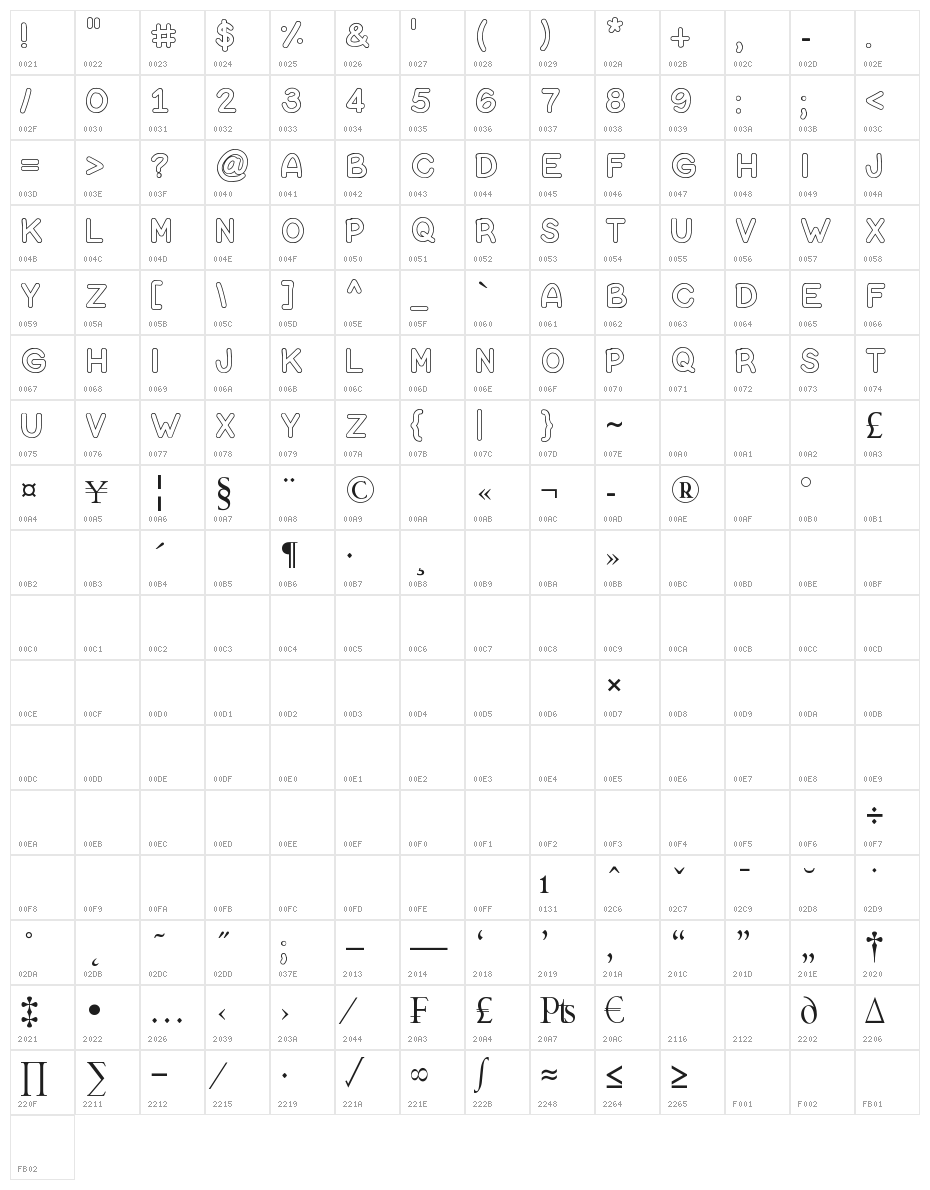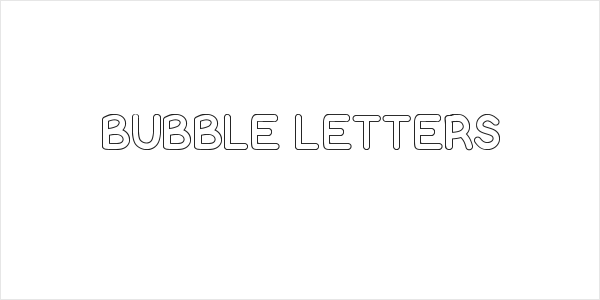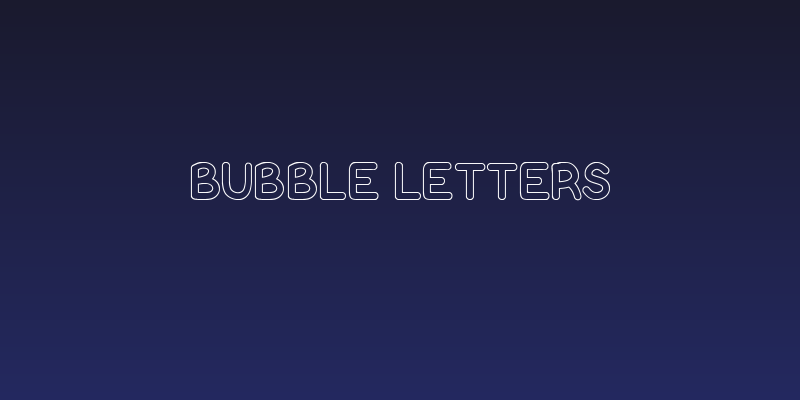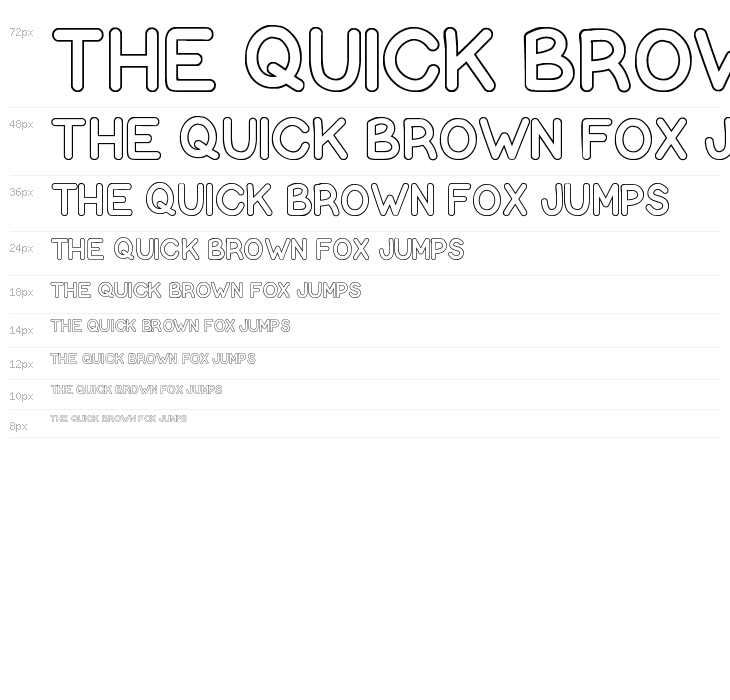
Bubble Letters Font
Bubble Letters Description
This playful and bold font features rounded, bubble-like characters that give off a fun and informal vibe. The letters are outlined, creating a hollow effect that adds to the whimsical nature of the design. Each character is evenly spaced, maintaining a consistent look throughout. The font includes a full set of uppercase and lowercase letters, numbers, and a variety of special characters. Its unique style makes it stand out, perfect for projects that require a lively and engaging typeface.
| Overall Style | Playful |
| Proposed Projects | Ideal for children's books, party invitations, playful branding, and creative posters. |